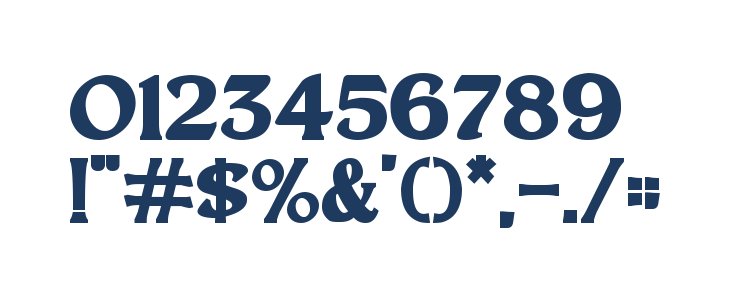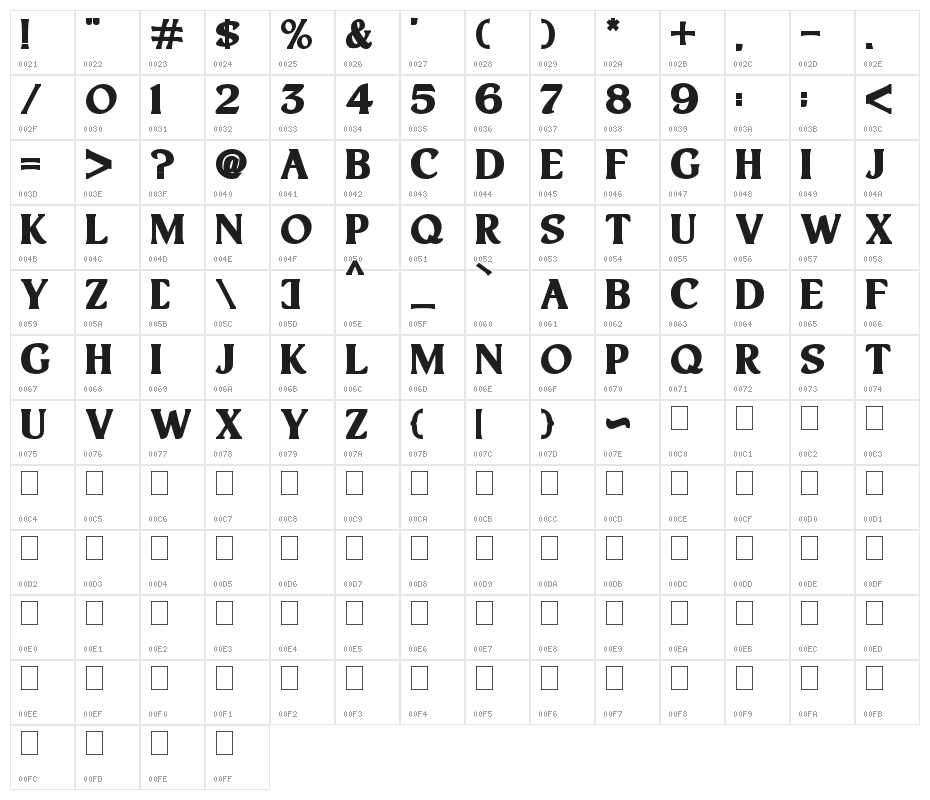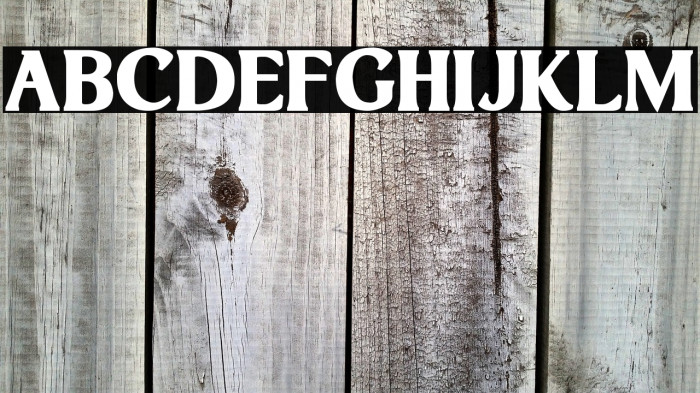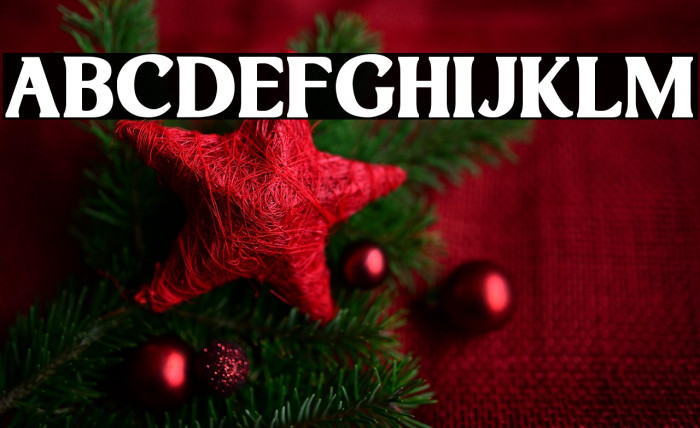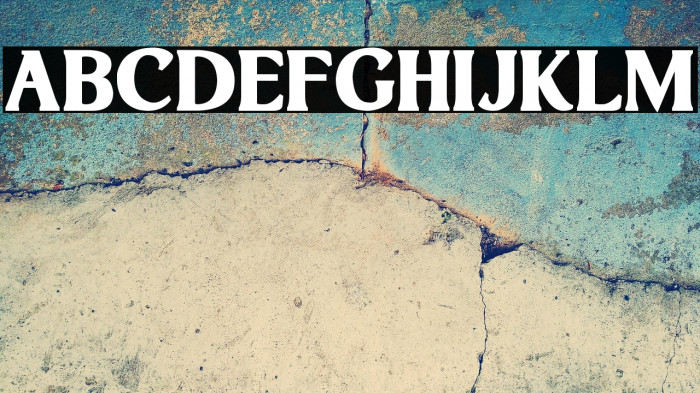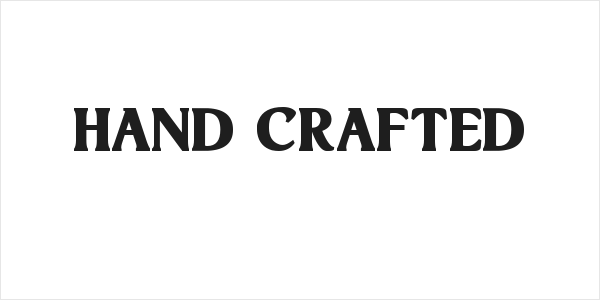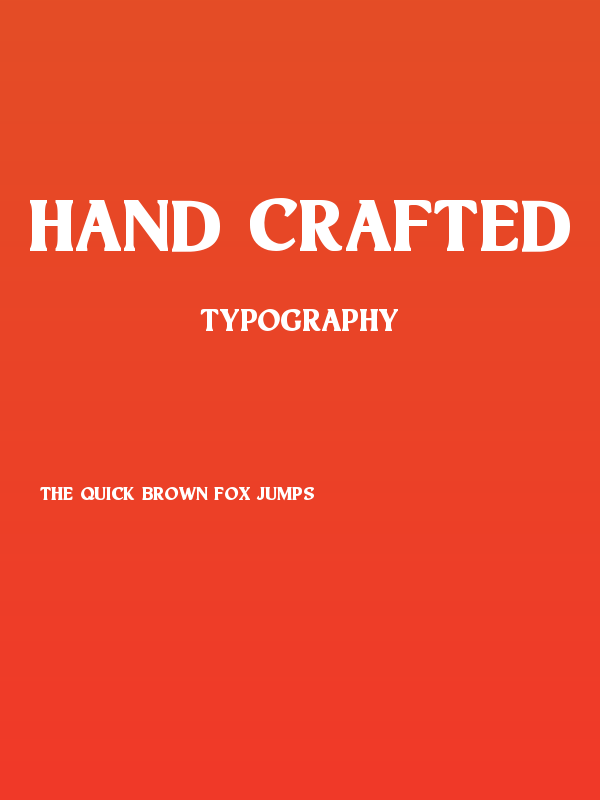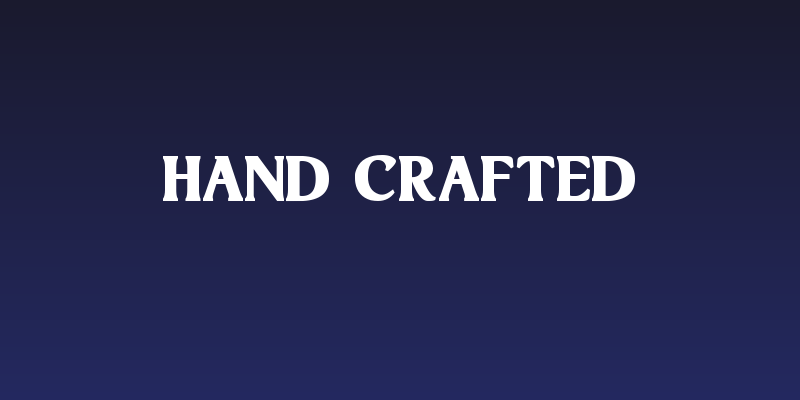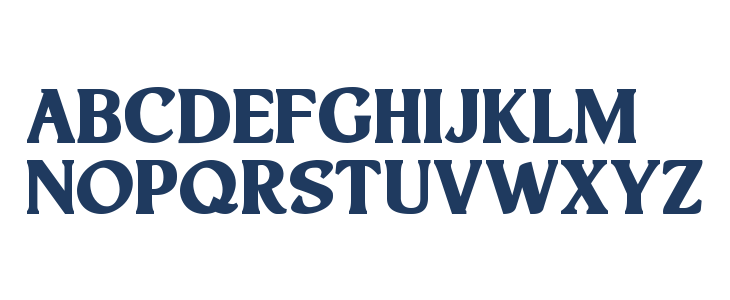
Hand Crafted Font
Hand Crafted Description
This font features a bold and striking design with strong serifs and a classic appeal. The uppercase letters are robust and commanding, while the lowercase letters maintain a consistent weight and style. Numbers are equally bold, ensuring readability and impact. The special characters are crafted with attention to detail, matching the overall aesthetic. The font's high contrast in stroke thickness adds to its dramatic presence, making it ideal for attention-grabbing headlines and titles.
| Overall Style | Classic |
| Proposed Projects | Ideal for branding, headlines, posters, and editorial design where a strong, classic presence is required. |